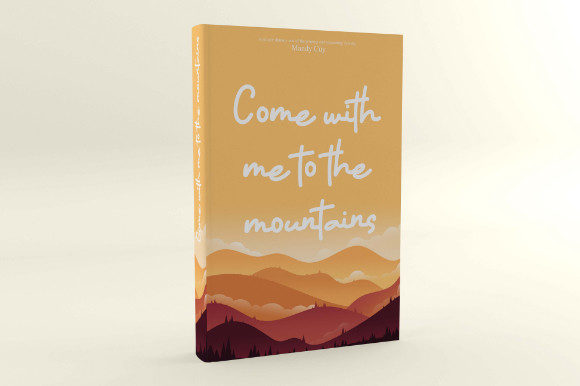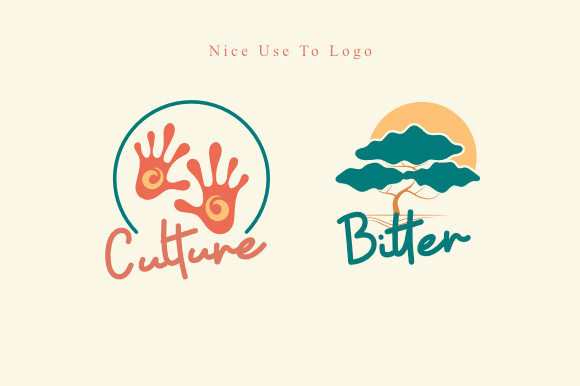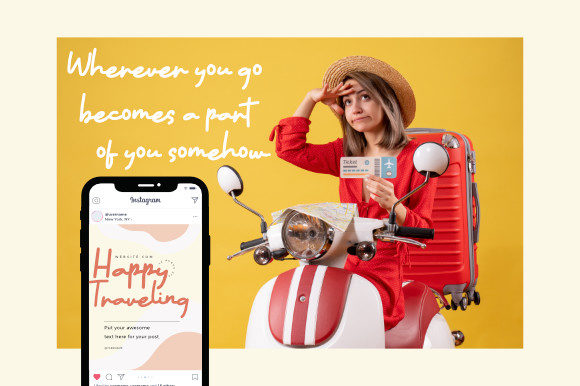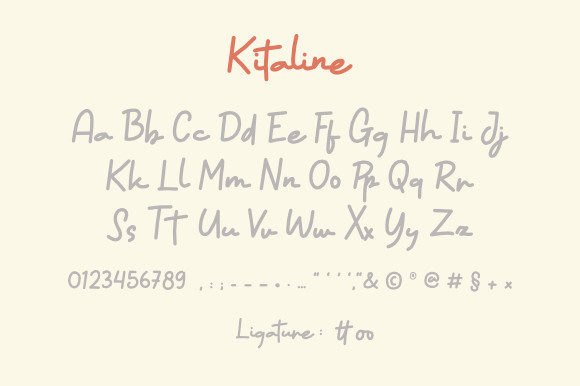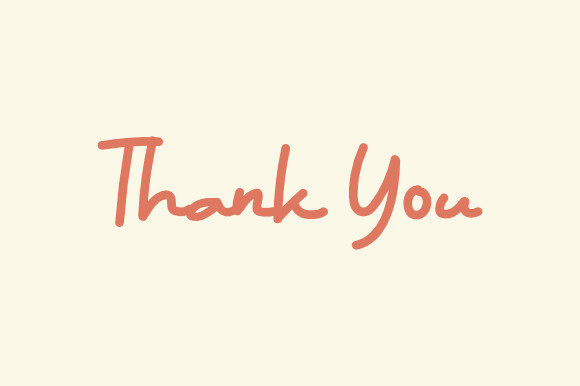
Introduction to Kitaline Font
Kitaline is a sweet and friendly handwritten font.
Kitaline Font offers exceptional quality and versatility, making it a valuable addition to your design toolkit. Whether you’re creating for personal projects or commercial use, Kitaline Font delivers professional results.